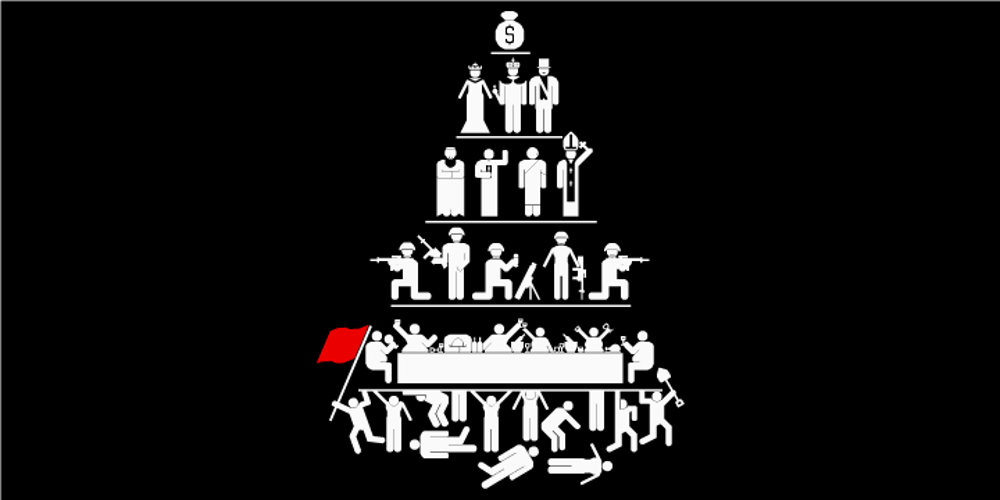
Capitalist Pictograms Font Family was designed by Wilson Thomas and published by Funk King. Capitalist Pictograms contains 1 styles and family package options. Capitalist Pictograms is a picture fonts inspired by the classic Capitalist poster. Glyphs can be used to recreate the iconic poster or individually for fun.